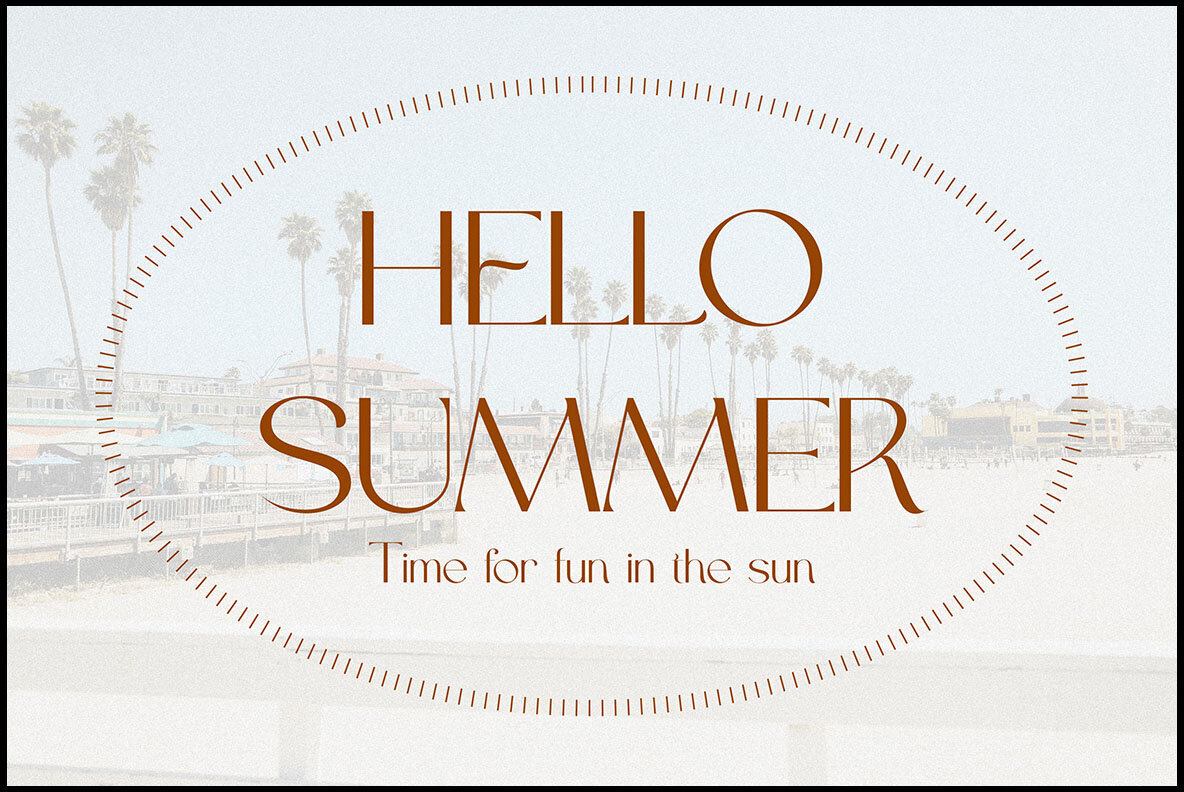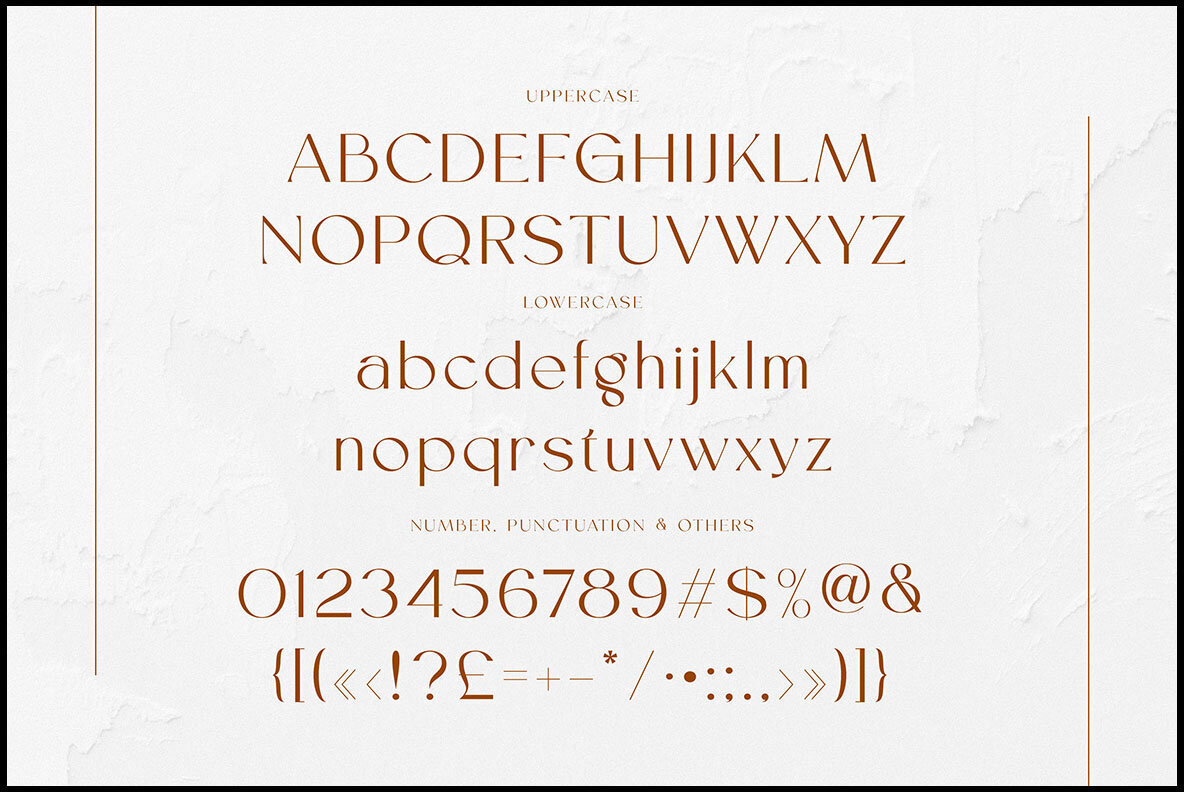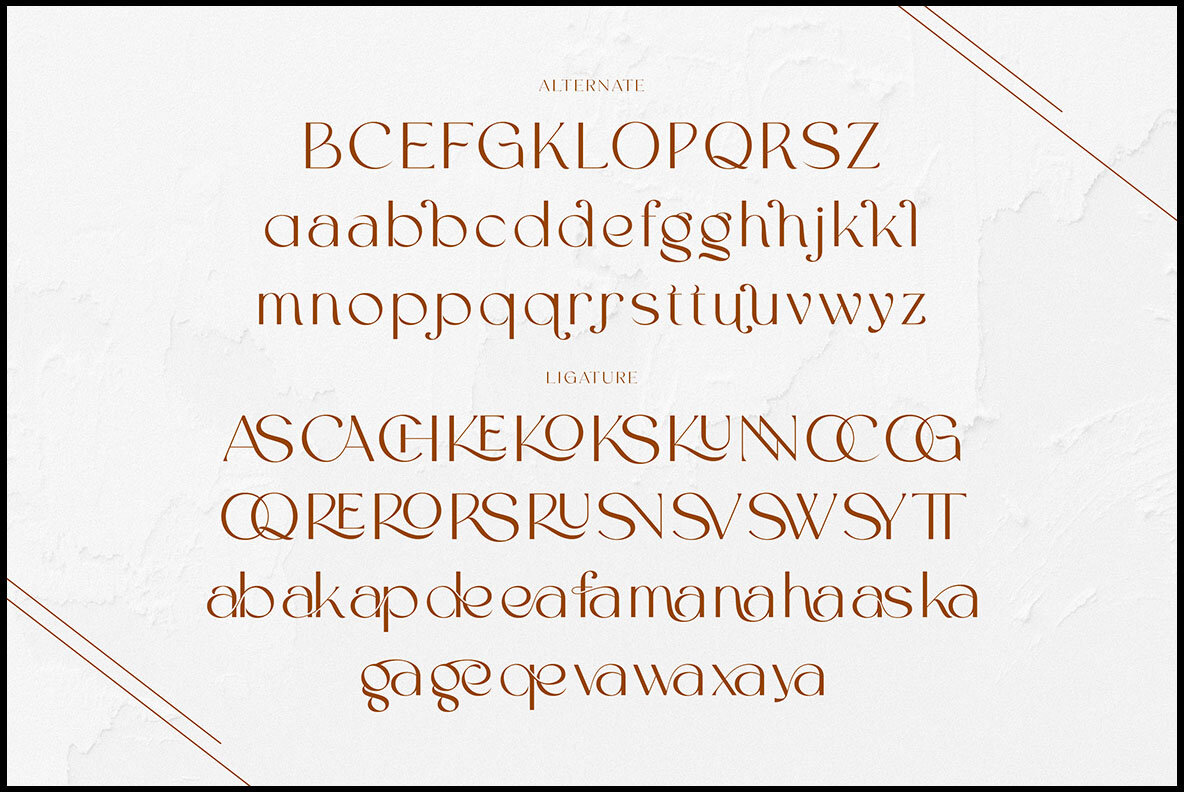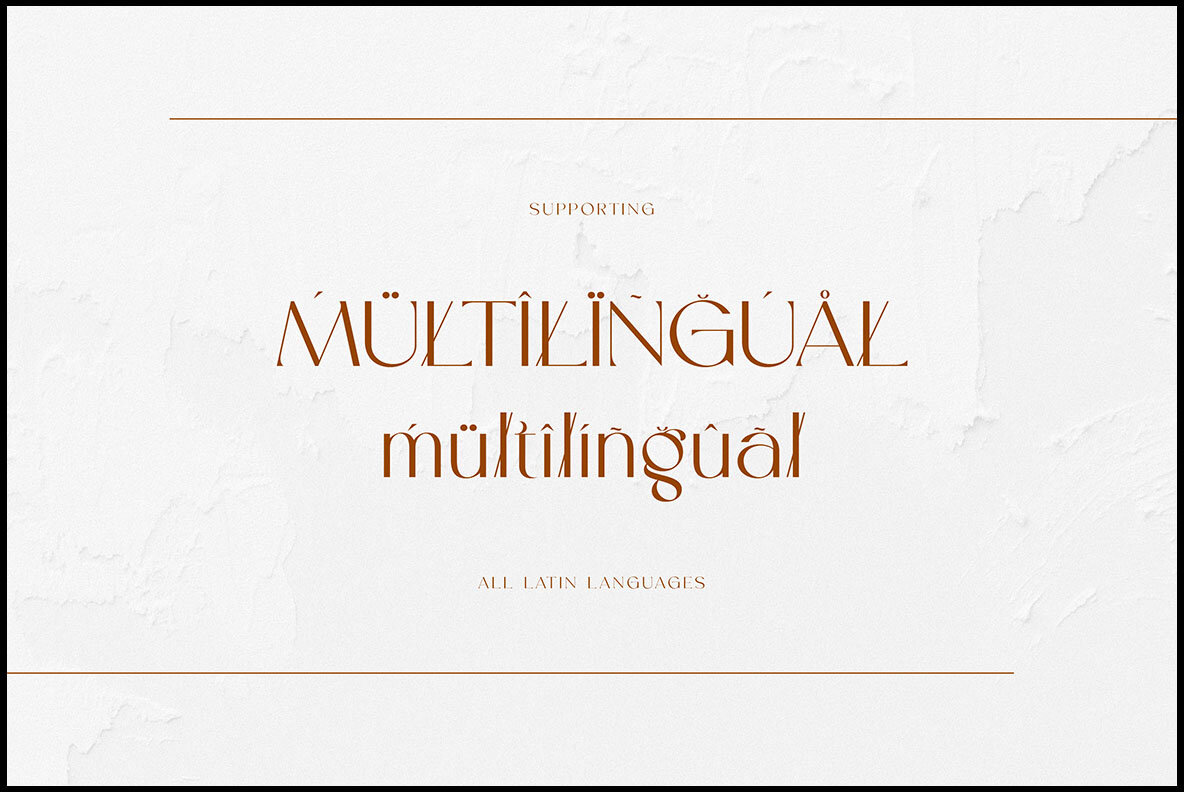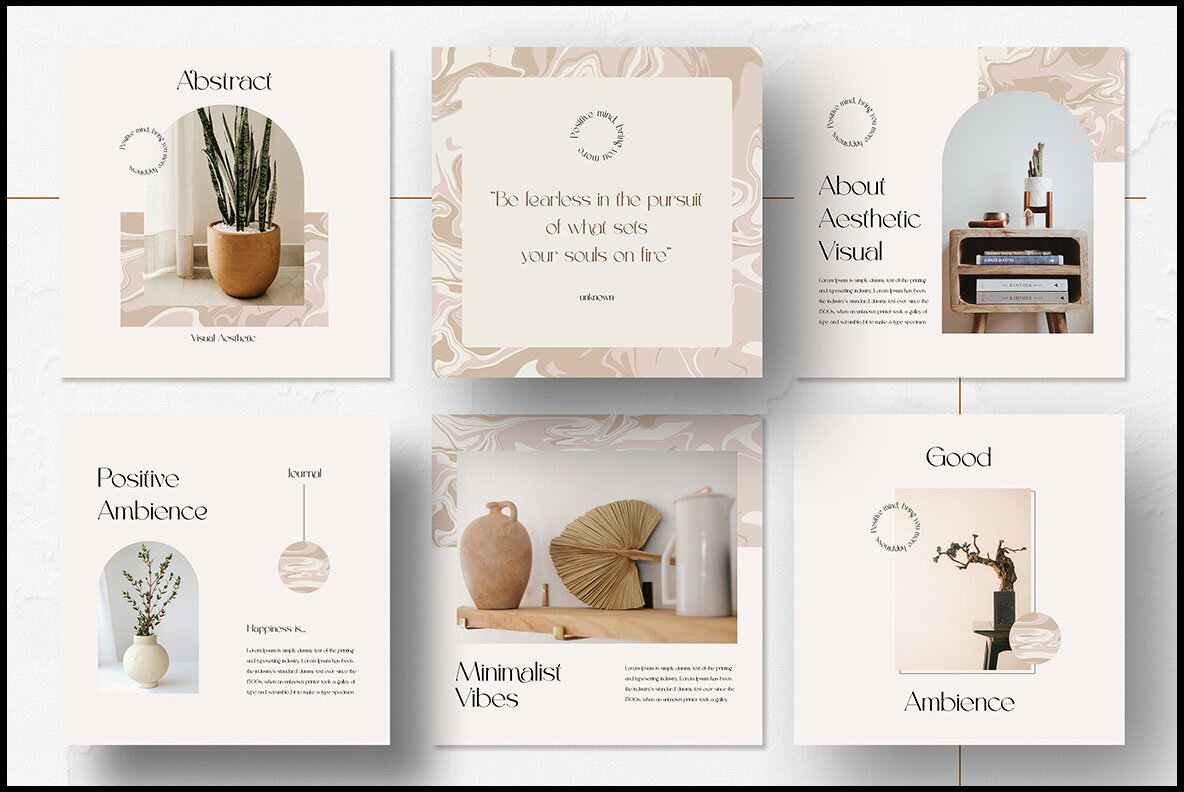
Rastegar Font
Rastegar Regular
Rastegar by Peter Olexa is a stylish sans serif font that merges trendy, elegant, modern, and retro elements to enhance your modern projects. With its luxury, artistic, and fashion-inspired design, Rastegar is perfect for various branding endeavors. The font features numerous alternates and ligatures, allowing you to craft unique and original logo designs or website headers.Rastegar: Versatile Sans Serif with Retro Flair